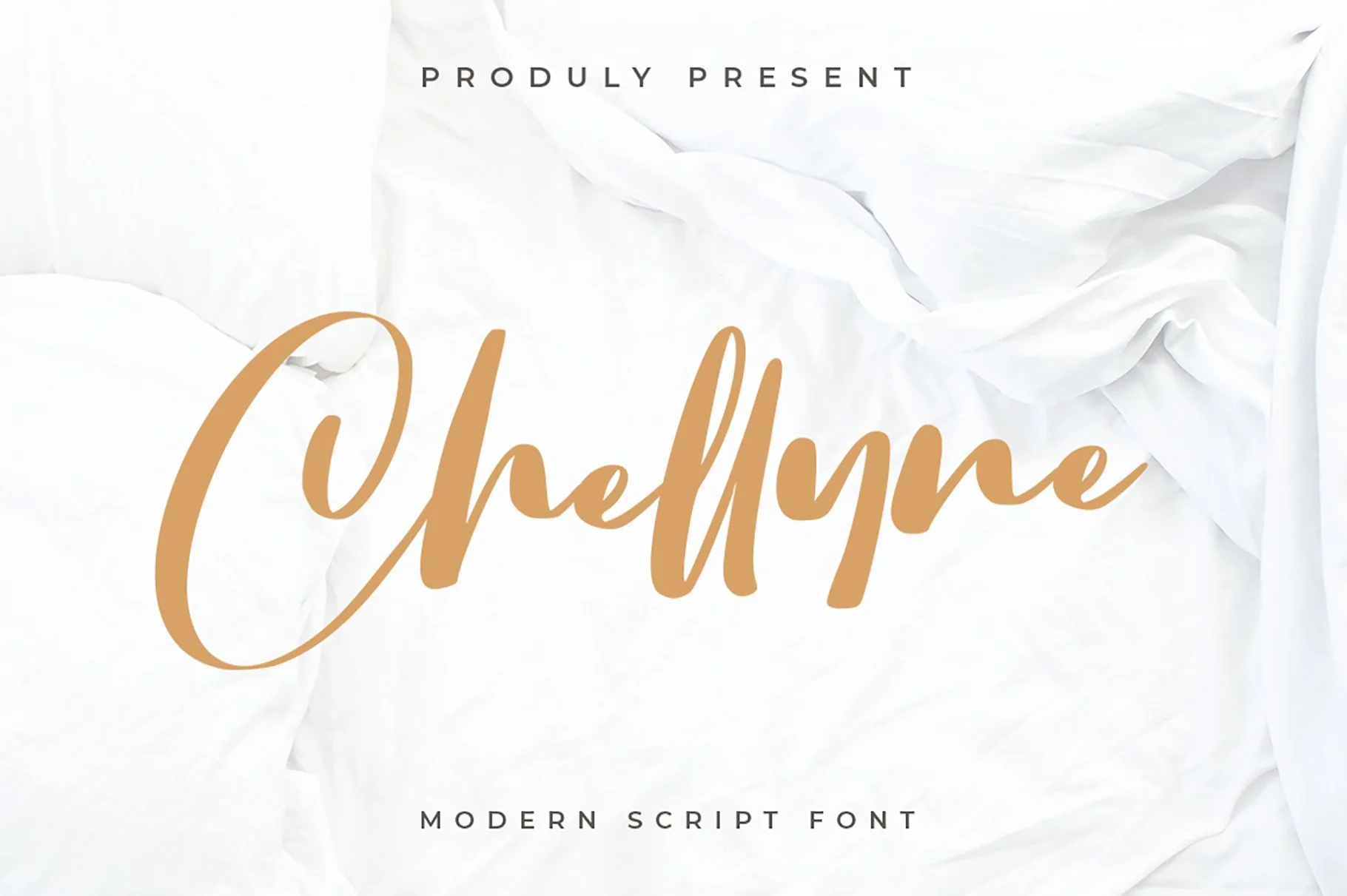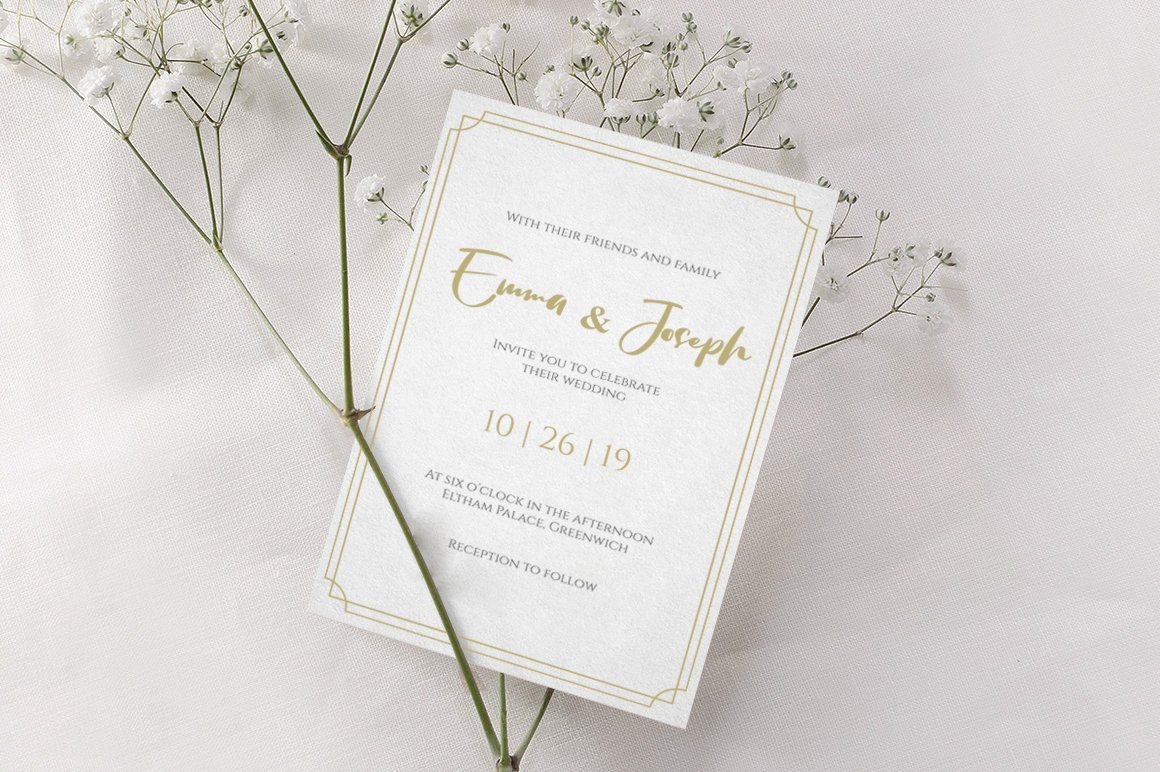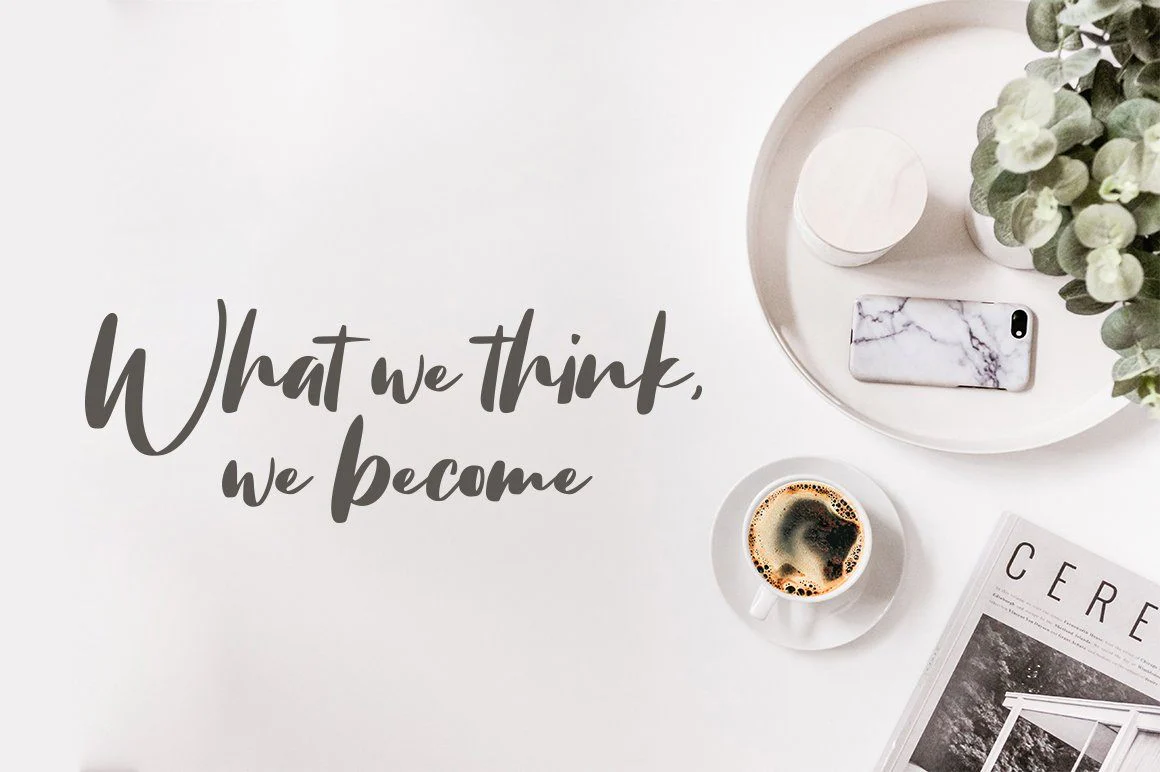
Chellyne - Modern Script Font
Introducing Chellyne - Modern Script Font
This Font can be used for any variety of purposes, such as: Â
photography, Wedding, Packaging Products, Logo Type, Branding, T-Shirt Design, Website/Blog, Cover Magazine, Brochures and also can be used for personal purpose.
This Font Template contains Modern, Elegant, creative, Professional and Unique Concept.
- Uppercase & Lowercase letters